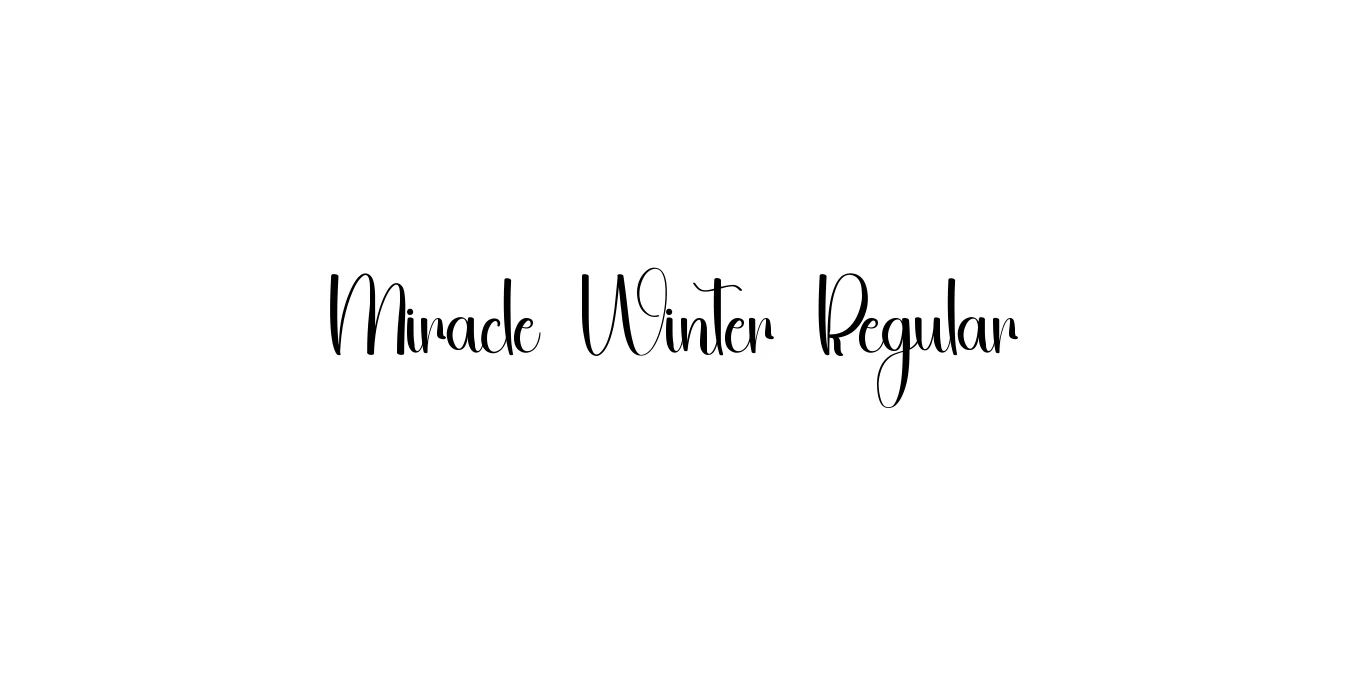
Miracle Winter Regular
| Font Name | Miracle Winter |
| Category | Calligraphy Script |
Miracle Winter Regular was developed by Letterena Studios as a contemporary exploration of modern calligraphy, specifically designed to capture the fluid grace of handwritten ink on parchment. Its origin lies in the movement toward aesthetic, boutique-style script typography that gained significant traction in the early 2020s, bridging the gap between formal copperplate invitation scripts and casual, expressive contemporary brushwork. This typeface was crafted to provide designers with a tool that evokes a sense of bespoke craftsmanship and intimate, seasonal warmth.
From a technical standpoint, Miracle Winter features a sophisticated balance of stroke weights, characterized by hairline connectors that contrast sharply against deliberate, bold downstrokes. The x-height is kept relatively low to facilitate elongated, sweeping ascenders and descenders that create a rhythmic vertical energy across the baseline. The kerning is meticulously calibrated to ensure that the ligatures flow seamlessly, maintaining visual coherence even in dense text blocks. While the legibility is high for a script face, it excels most in display settings where the intricate terminal flourishes and rhythmic loops can be fully appreciated without crowding.
Miracle Winter Regular Best Uses
Ideal for wedding invitations, formal RSVP cards, and personalized letterheads.
Effective for luxury logos, beauty product packaging, and signature-style identities.
Perfect for high-end lifestyle quotes, fashion editorial overlays, and holiday-themed graphics.